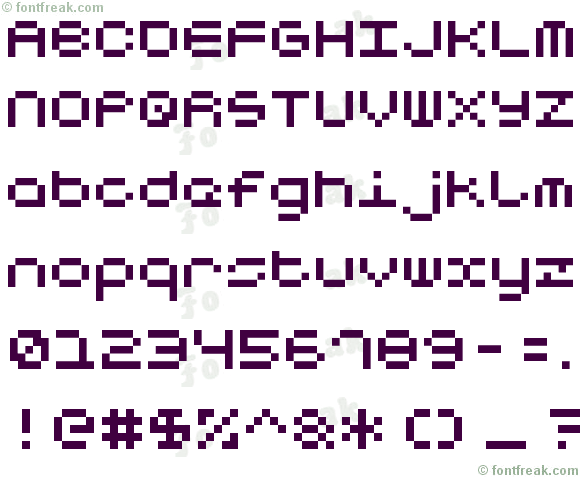
Notalot25 Regular
Notalot25 Regular is a unique display font designed by Andrew McCluskey in 2012, categorized under decorative typefaces. This font features a distinctive, pixelated aesthetic that evokes a sense of retro charm, making it particularly versatile for various creative applications. The stroke weight is consistent, creating a uniform appearance, while the spacing provides ample breathing room, ensuring that each character stands out. The font lacks elaborate decorative elements, emphasizing clarity and simplicity, which adds to its vintage appeal.
Perfect for a range of design projects, Notalot25 Regular shines in settings such as video game graphics, retro-themed branding, and even signage for events like tech conventions. Its playful yet legible style makes it an excellent choice for posters, flyers, and promotional materials that aim to capture attention with a nostalgic touch. Additionally, its straightforward design is well-suited for social media graphics, allowing content creators to convey messages effectively while maintaining a visually striking presence.
What truly sets Notalot25 Regular apart is its ability to blend simplicity with a retro flair, making it an ideal choice for designs that need to evoke nostalgia while remaining contemporary. For those in search of a distinctive touch, Notalot25 Regular font free download offers an opportunity to creatively stand out in a crowded digital landscape.